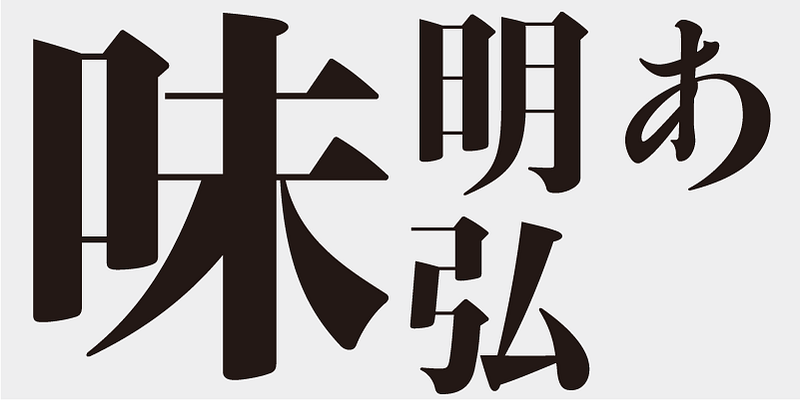
AB Ajimin Modern Ko/EB Font Free Download is an extra bold serif typeface that blends traditional Japanese Mincho elegance with a refined, contemporary feel. The Ko/EB (Extra Bold) style is designed to make a strong visual statement with its high contrast strokes, graceful curves, and finely sharpened serifs—perfect for editorial headlines, upscale branding, packaging, and cultural projects requiring both sophistication and authority.
This font balances calligraphic character with modern clarity, delivering a visual rhythm that feels both powerful and poised. Supporting both Japanese and Latin scripts, AB Ajimin Modern Ko/EB is a smart choice for bilingual designs and international projects with a high-end tone.